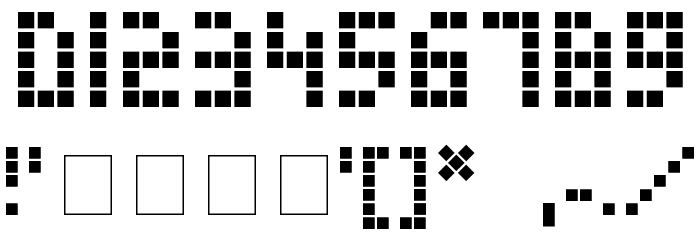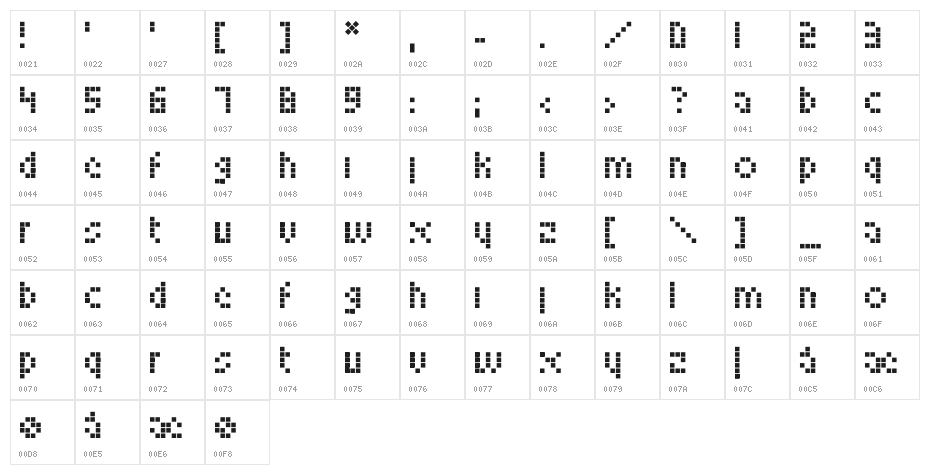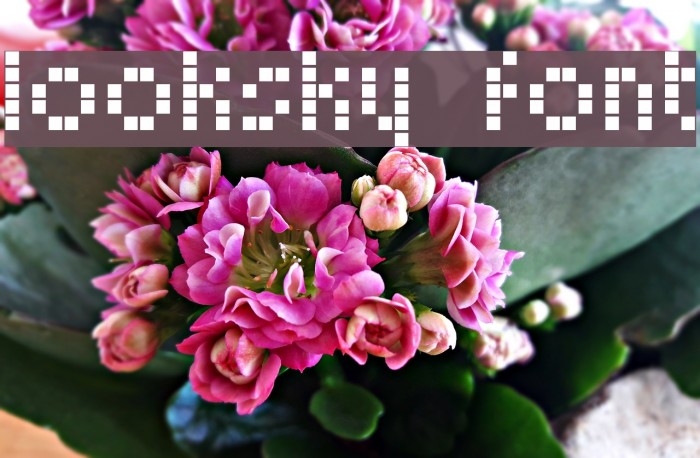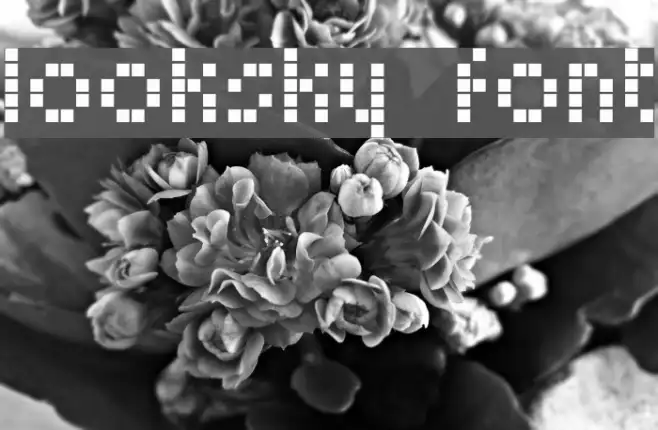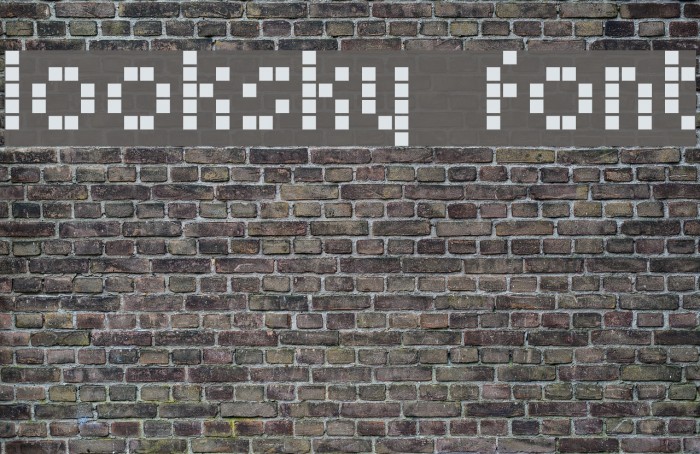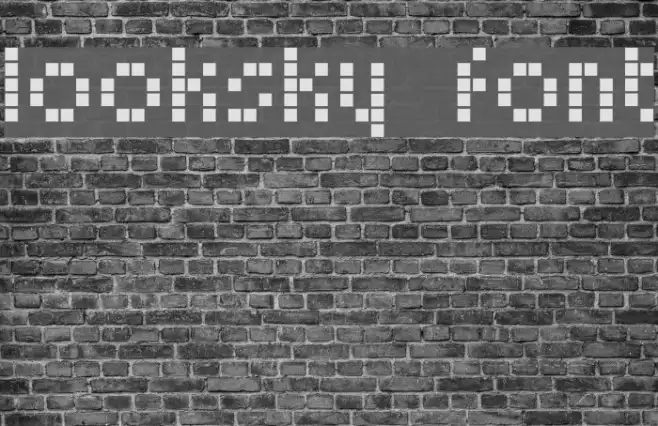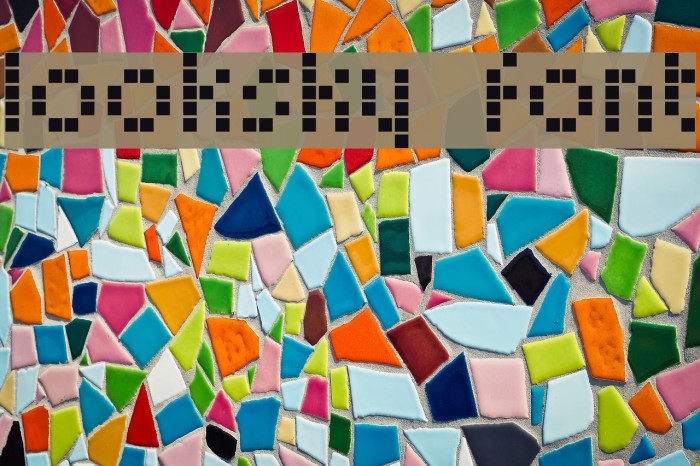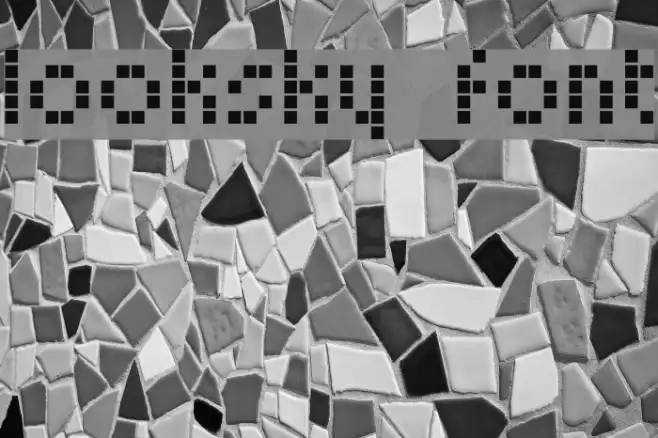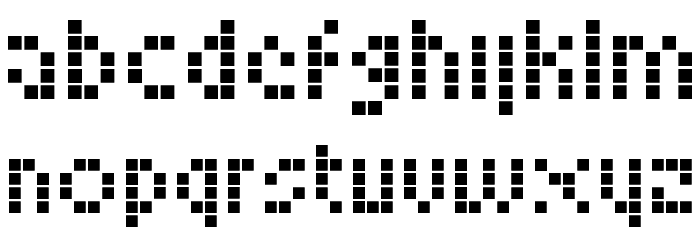
Looksky Font Font
Looksky Font Description
This font features a unique pixelated design, reminiscent of early digital displays and retro video games. Each character is constructed from a grid of small squares, creating a blocky and geometric appearance. The uniformity and simplicity of the design give it a distinctly modern and digital feel, while also evoking a sense of nostalgia for classic arcade aesthetics. The characters are evenly spaced, maintaining a consistent rhythm across both uppercase and lowercase letters, as well as numbers and special symbols. This font is ideal for projects that aim to capture a vintage digital look or for use in creative, tech-themed designs.
| Proposed Projects | Ideal for video game design, digital art projects, tech-themed branding, and retro-style posters. |